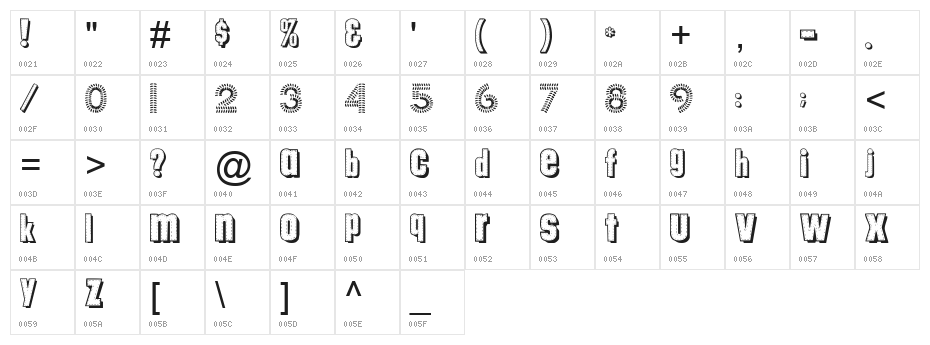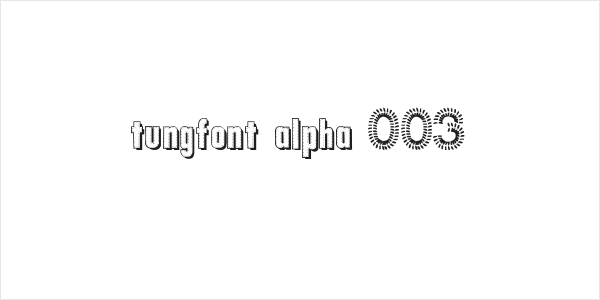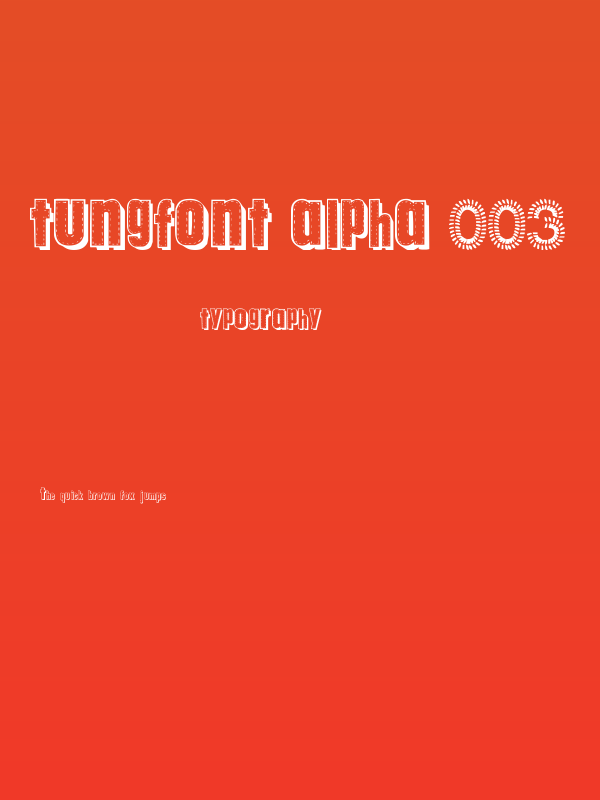
tungfont alpha 003 Font
tungfont alpha 003 Description
This font features a bold and playful design with a dotted pattern filling each character, creating a unique and eye-catching appearance. The letters are uppercase and lowercase, with numbers and a variety of special characters included. The style is decorative, with a modern twist that makes it suitable for creative projects. The bold outlines enhance the visibility and impact of the text, making it ideal for headlines or titles. The font's overall design is both fun and versatile, offering a fresh take on traditional typography.
| Proposed Projects | Ideal for posters, event flyers, children's books, and creative branding projects. |